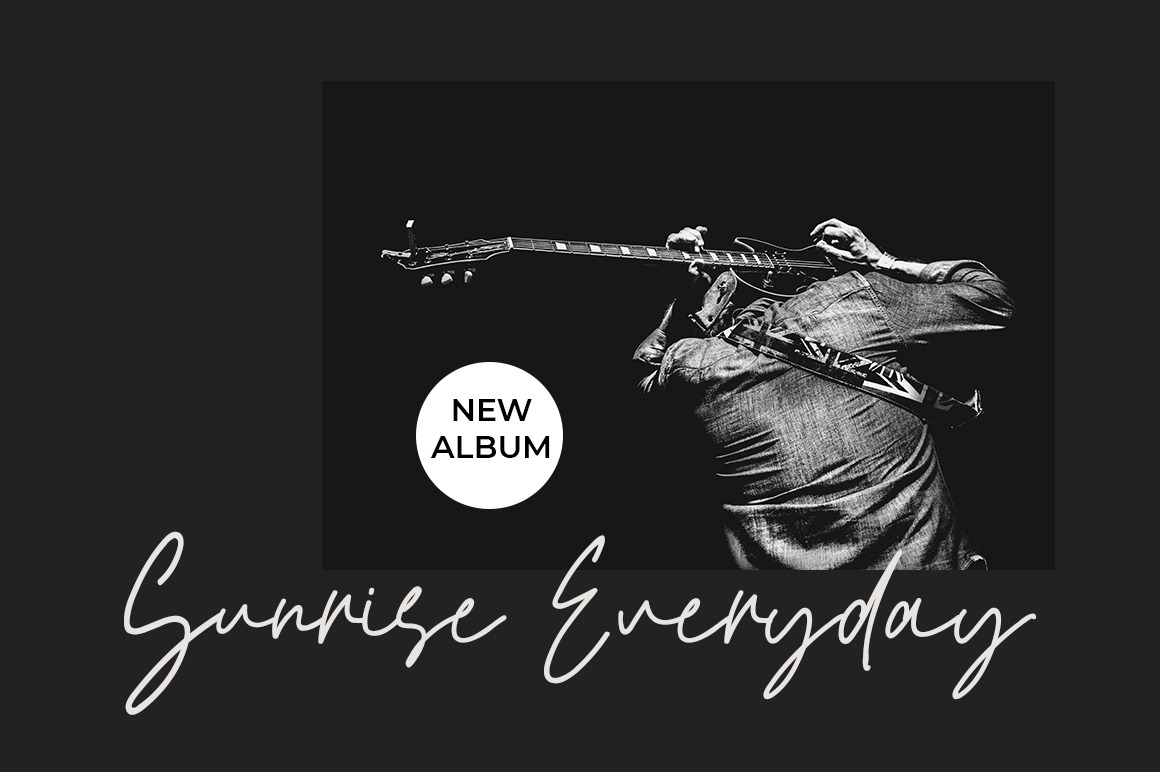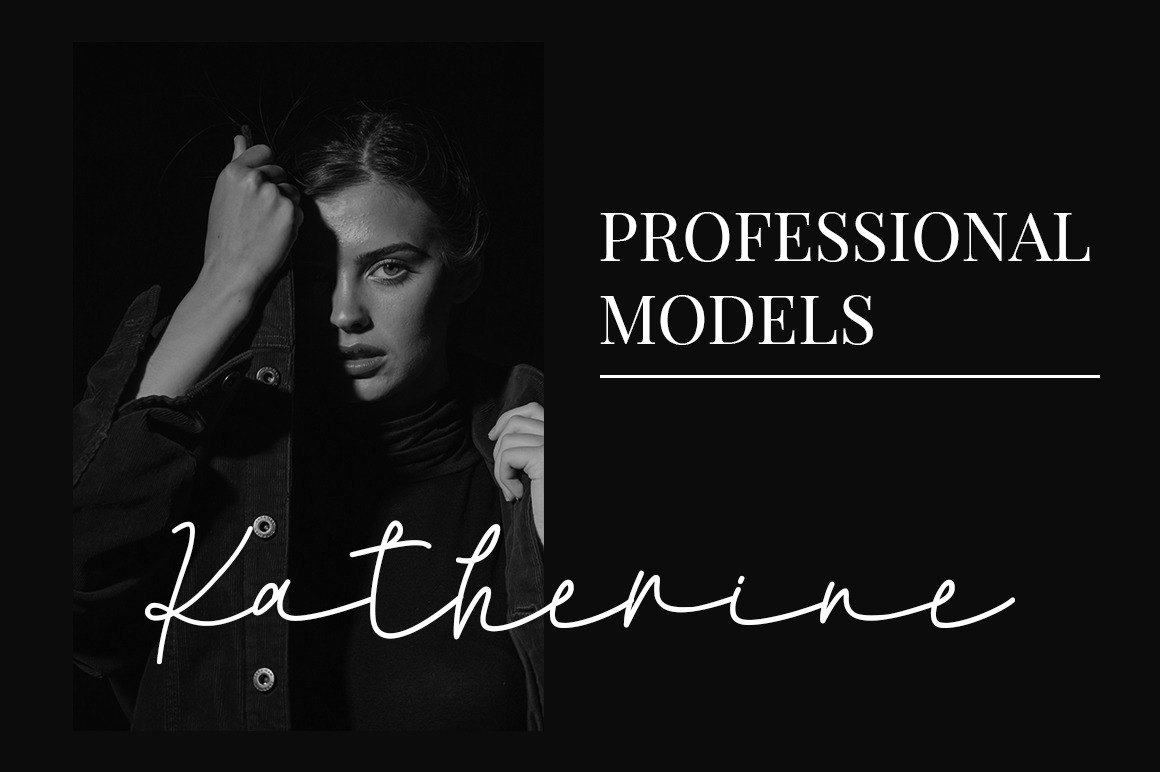
Salma Emanuella Handwritten Font
This is a elegant monoline handwritten typeface from designer Bluestype Studio. Use it for your most creative projects and watch how it makes them come alive! Get inspired by its modern simplicity!
This font is suitable for use on branding, business cards, weddings, t-shirt designs, logos, magazines, quotes, fashion, watermarks, invitations, signatures.